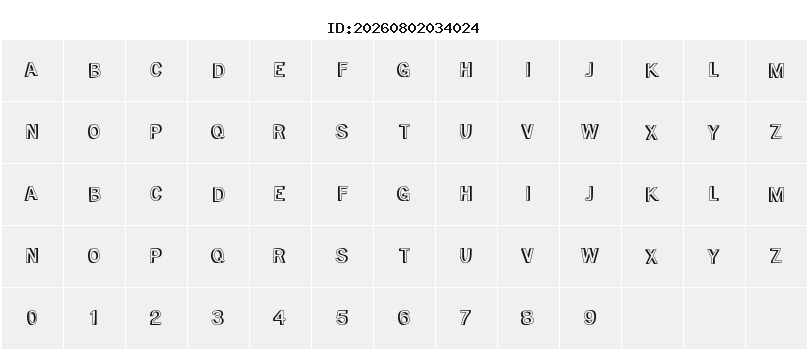
• Font Name: MTF Toast
• Full Font Name: MTF Toast
• Designer: Miss Tiina
MTF Toast.ttf is a modern, elegant sans-serif font designed for ultimate readability and visual harmony. Perfect for branding, headlines, web design, and print materials.